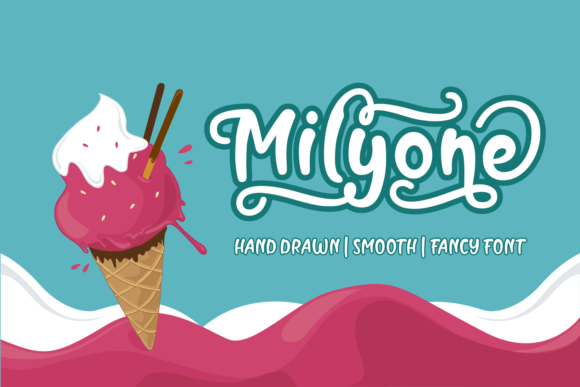
Journey into the enchanting realm of Milyone Font, a hand-crafted script typeface that dances gracefully across your designs. With its smooth, flowing letters, Milyone invites you to unleash your creativity and paint a picture of elegance in every project.
Immerse yourself in the beauty of Milyone's flowing ligatures and swashes, adding a touch of magic to your designs. Whether you're crafting wedding invitations, creating logos that exude sophistication, or designing social media posts that captivate, Milyone is your perfect companion.
Experience the versatility of Milyone, seamlessly adapting to a wide range of projects. Its delicate strokes lend an air of femininity to branding materials, while its strong presence commands attention in headlines and posters. From playful invitations to heartfelt letters, Milyone effortlessly transforms your words into captivating works of art.
Milyone's intuitive design makes it a joy to use, ensuring that your design process is as smooth and effortless as the font itself. Its extensive character set and multilingual support empower you to create designs that resonate with a global audience.
Step into the world of Milyone Font and let your creativity soar. Transform your projects into masterpieces, leaving a lasting impression on your audience. Embrace the allure of Milyone and witness the magic unfold.